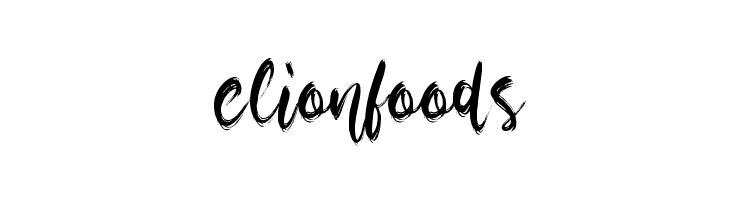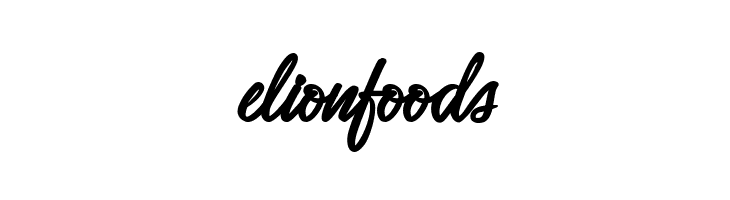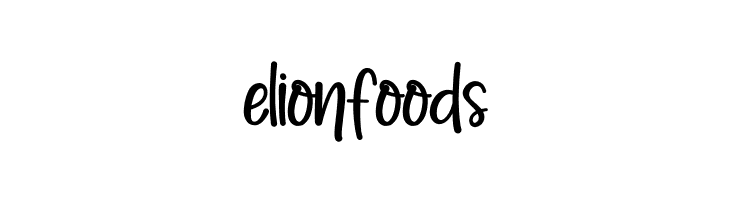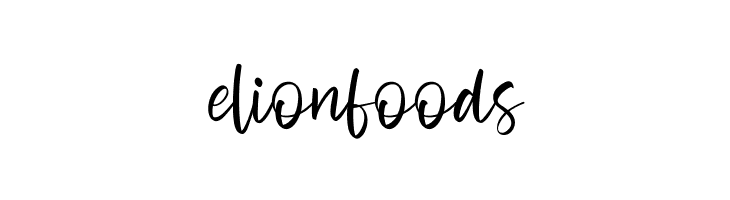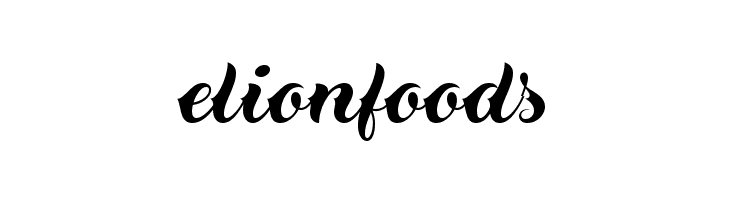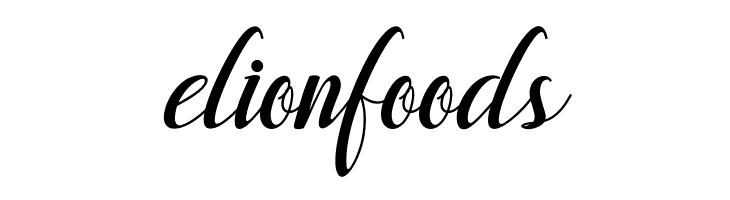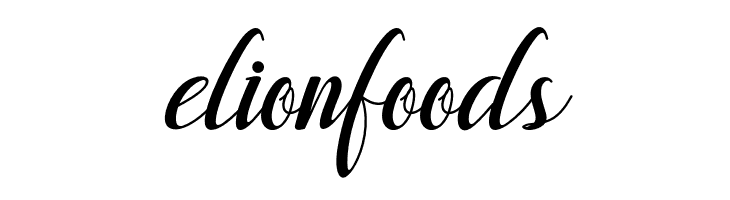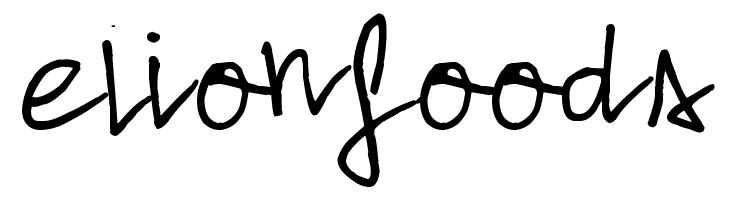
A playful, handwritten-style font with bold, rounded characters.
A lively and expressive handwritten font with fluid, dynamic strokes.
A dynamic, cursive script font with an elegant, handwritten style.
A casual, handwritten font with bold, consistent strokes and a playful appearance.
A casual, handwritten font with a lively and informal style.
An elegant script font with flowing, ornate letters and decorative flourishes.
An elegant script font with flowing, cursive characters and decorative swirls.
An elegant, cursive script font with high contrast and graceful loops.
A dynamic brush script font with expressive, hand-painted strokes.
A bold and expressive brush script font with fluid, interconnected strokes.